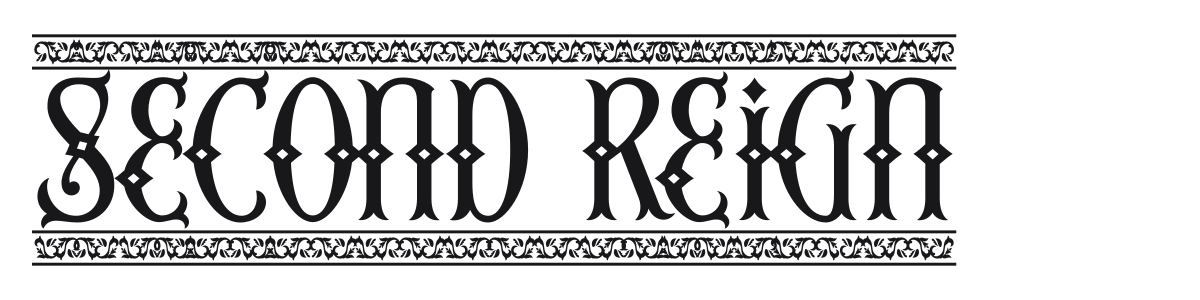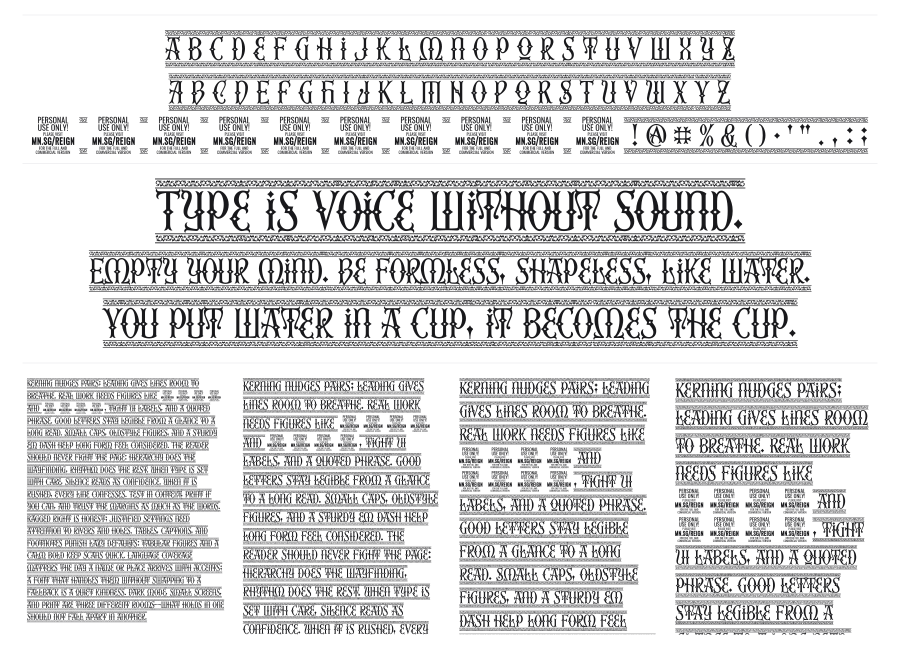
Second Reign
Second Reign is a decorative blackletter typeface built for maximum heraldic drama, with intricate diamond fills, angular gothic stems, and ornamental border frames that evoke illuminated manuscripts and medieval royal orders. The OpenType system enables contextual overlapping and alternates, giving layouts a sense of hand-crafted variability. It comes with built-in heraldic symbol support for dragons, crowns, swords, and more, making it a complete toolkit for medieval and fantasy branding.